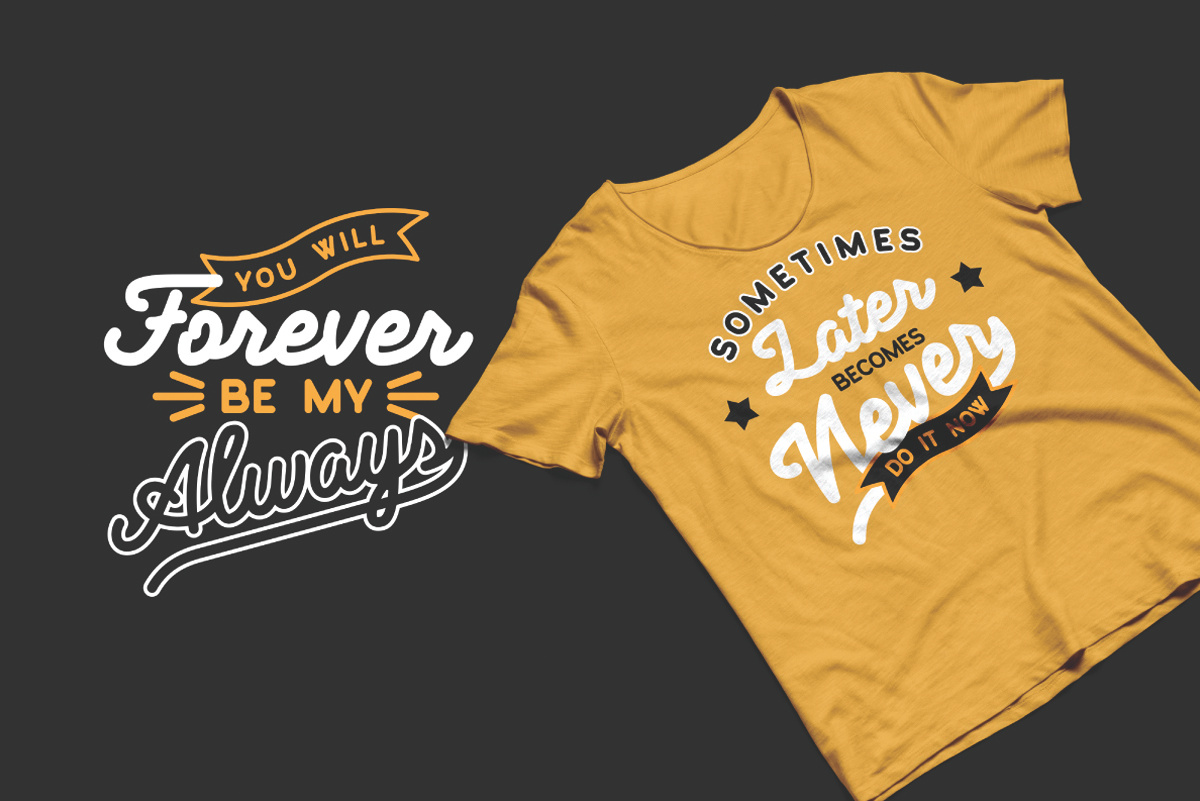
Heartland fonts lettering
Heartland font family is a pack of the bold connected script and rounded sans. Font is great to use for logotype, menu and product labels, prints, posters, branding, social media. https://www.myfonts.com/fonts/nrey/heartland/